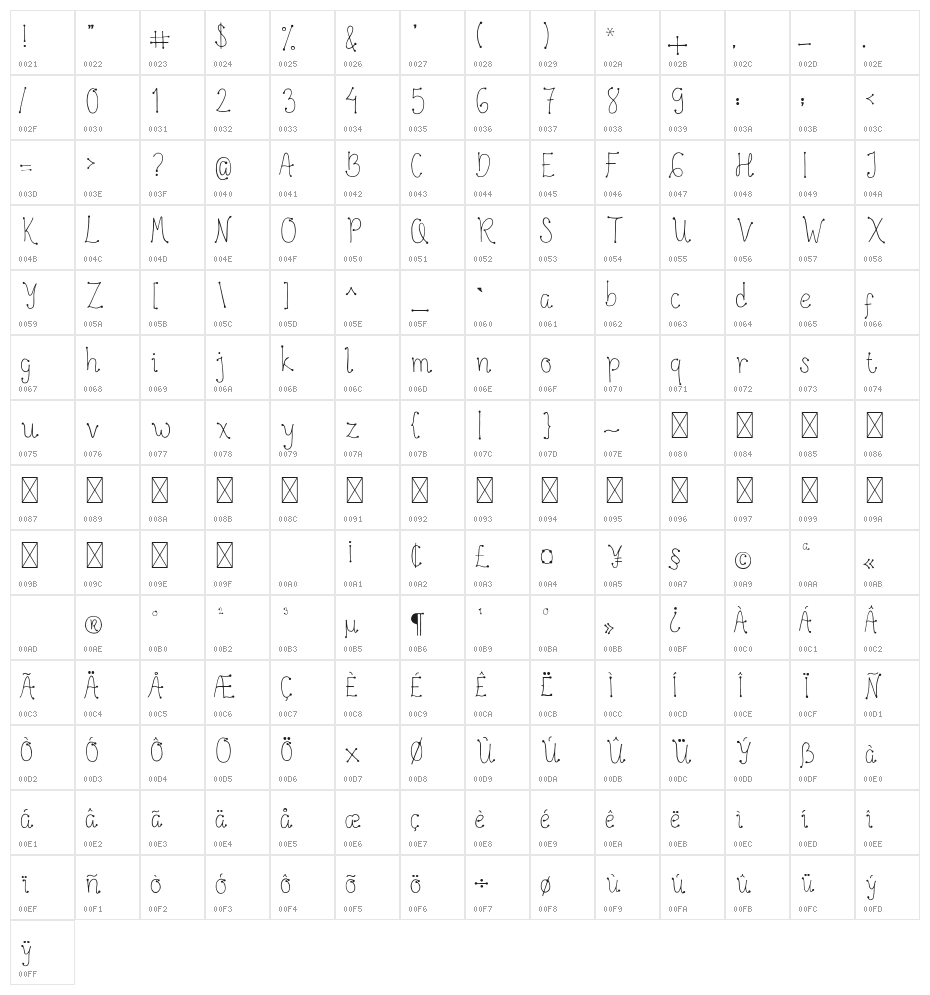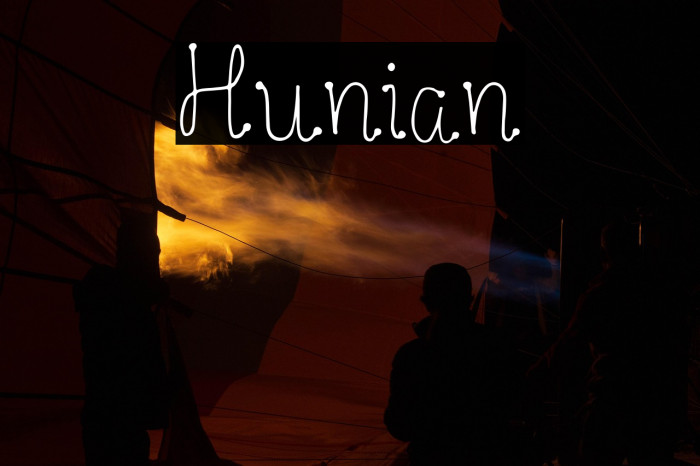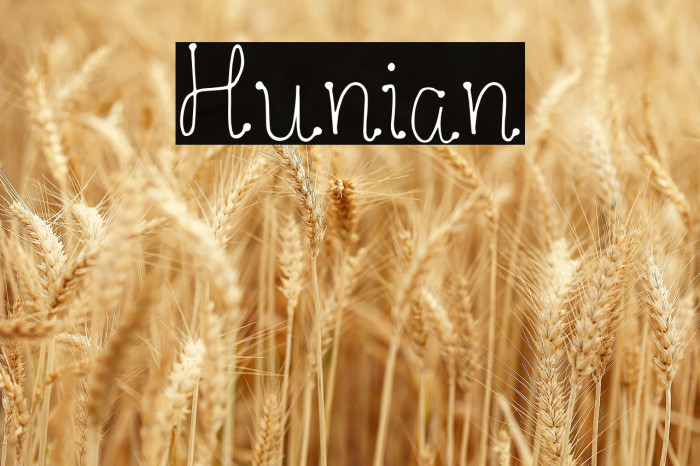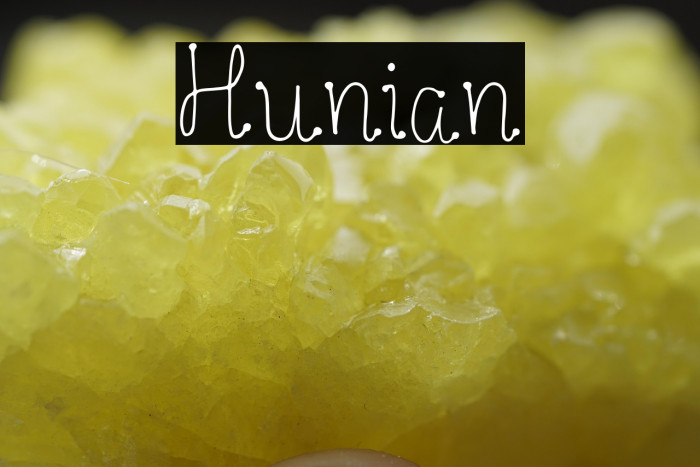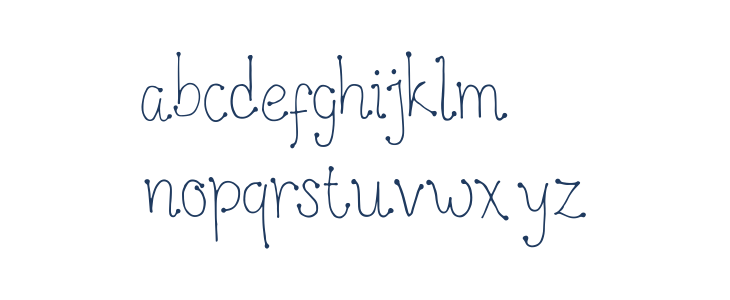
Hunian Font
Hunian Description
This font features a whimsical and playful design with a handwritten style. The letters are characterized by thin strokes and rounded edges, giving it a friendly and approachable appearance. The uppercase and lowercase letters maintain a consistent flow, while the numbers and special characters complement the overall aesthetic. The font's unique charm is highlighted by its irregular line thickness and slightly uneven baseline, adding to its casual and informal feel. It is well-suited for creative projects that require a touch of personality and warmth.
| Overall Style | Casual |
| Use Case | Logos, Invitations, Greeting Cards |
| Proposed Projects | Ideal for greeting cards, children's books, playful branding, and casual invitations. |